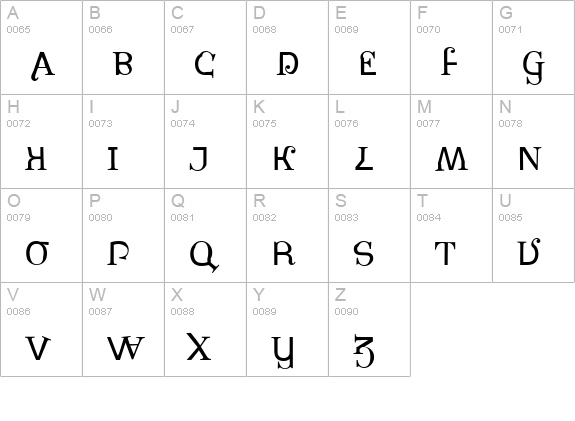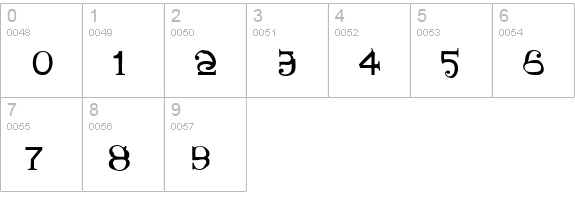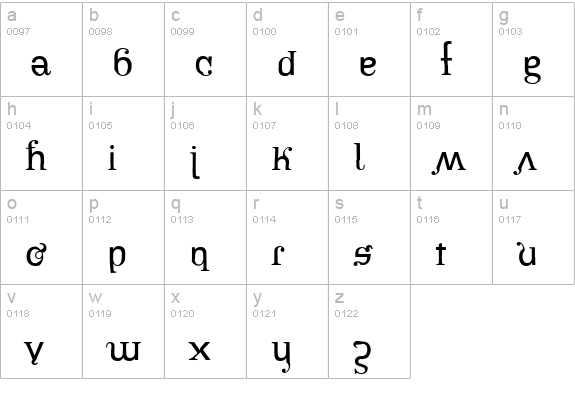
PiratesBonney Font Details
PiratesBonney font is a mystical and adventurous typeface that embodies the spirit of the high seas and the daring freedom of the pirate life. With its curvy, swash-like letterforms and bold strokes, this font captures the essence of pirate legends and treasure hunts. This unique and captivating font is not only visually stunning but also versatile, making it perfect for a wide range of design projects. Whether you're creating a pirate-themed party invitation, a pirate-themed game, or a poster for Talk Like a Pirate Day, PiratesBonney font will bring an authentic and captivating touch to your designs. What's even more exciting is that PiratesBonney font is free! Yes, you heard it right. This exquisite font can be freely downloaded from FontsMarket.com, a reputable website that offers a vast collection of high-quality fonts. With just a few clicks, you can have this treasure in your design toolkit, ready to add a touch of adventure to your projects. So, whether you're a graphic designer, a pirate enthusiast, or simply someone who appreciates the beauty of typography, don't miss out on the opportunity to get PiratesBonney font for free. Download it today from FontsMarket.com and set sail on a typographic adventure like no other.